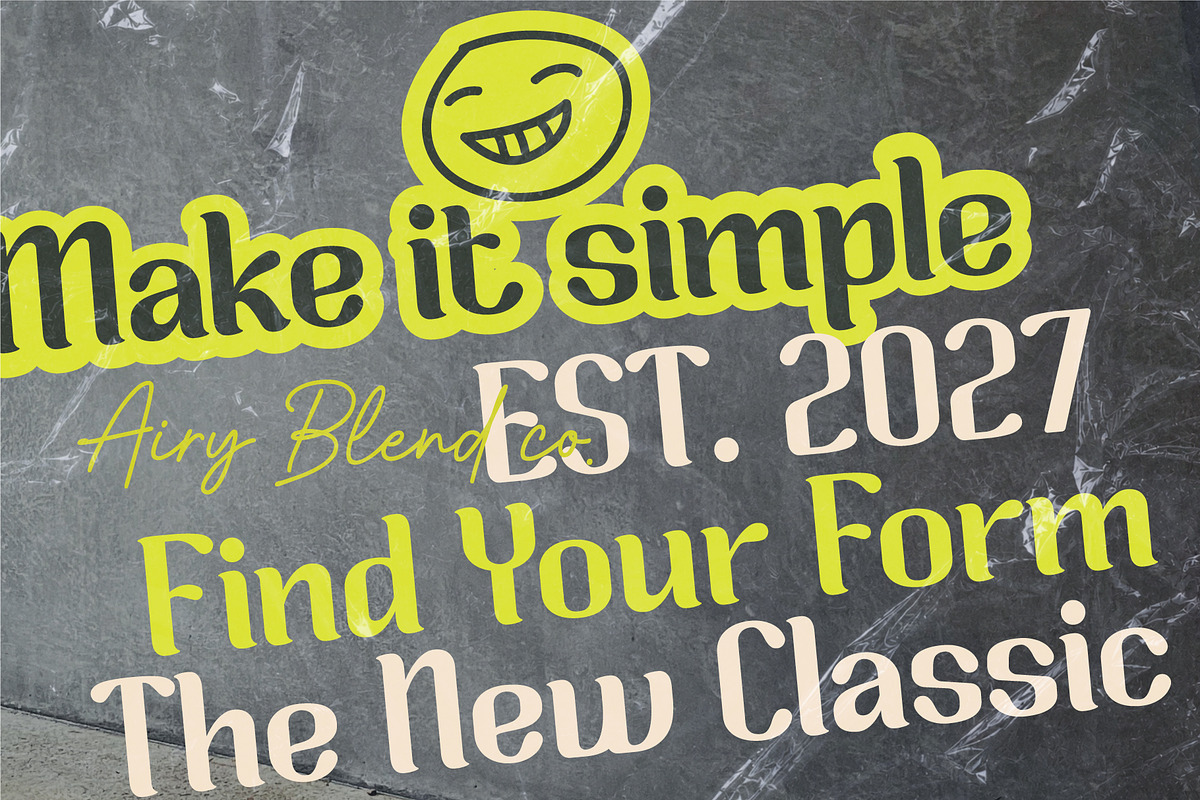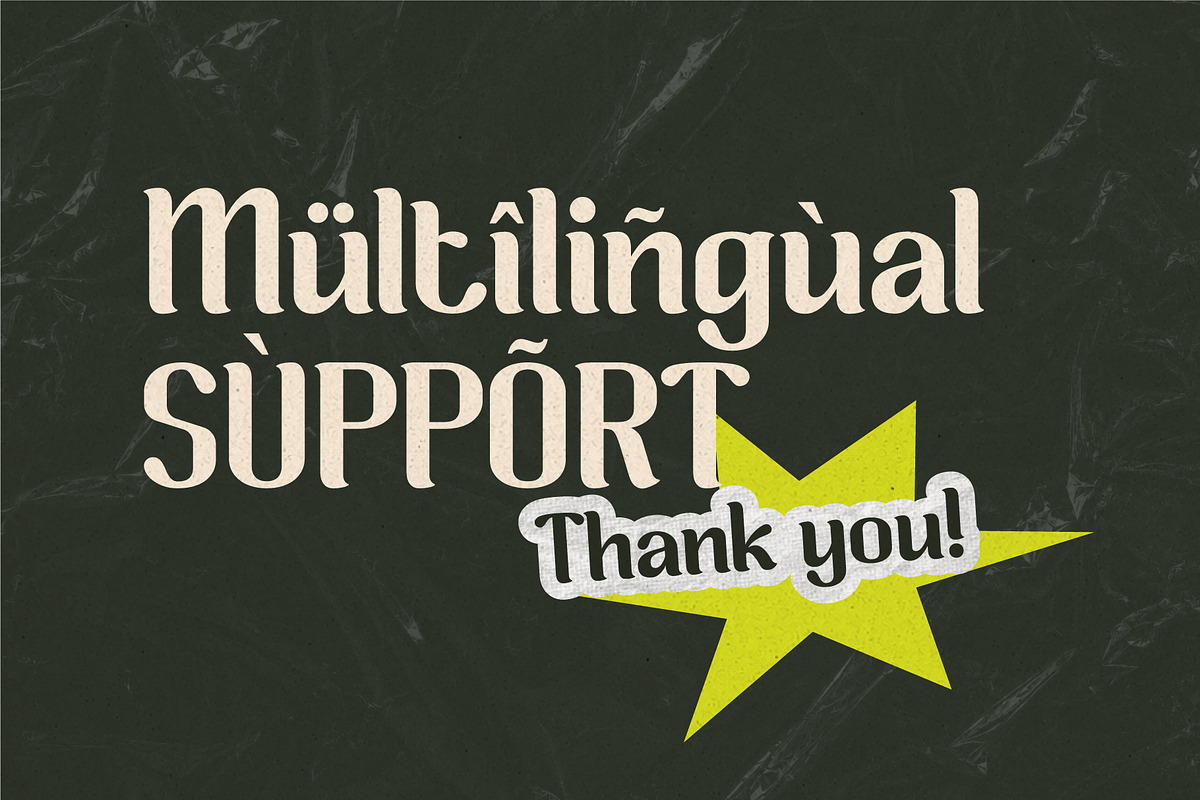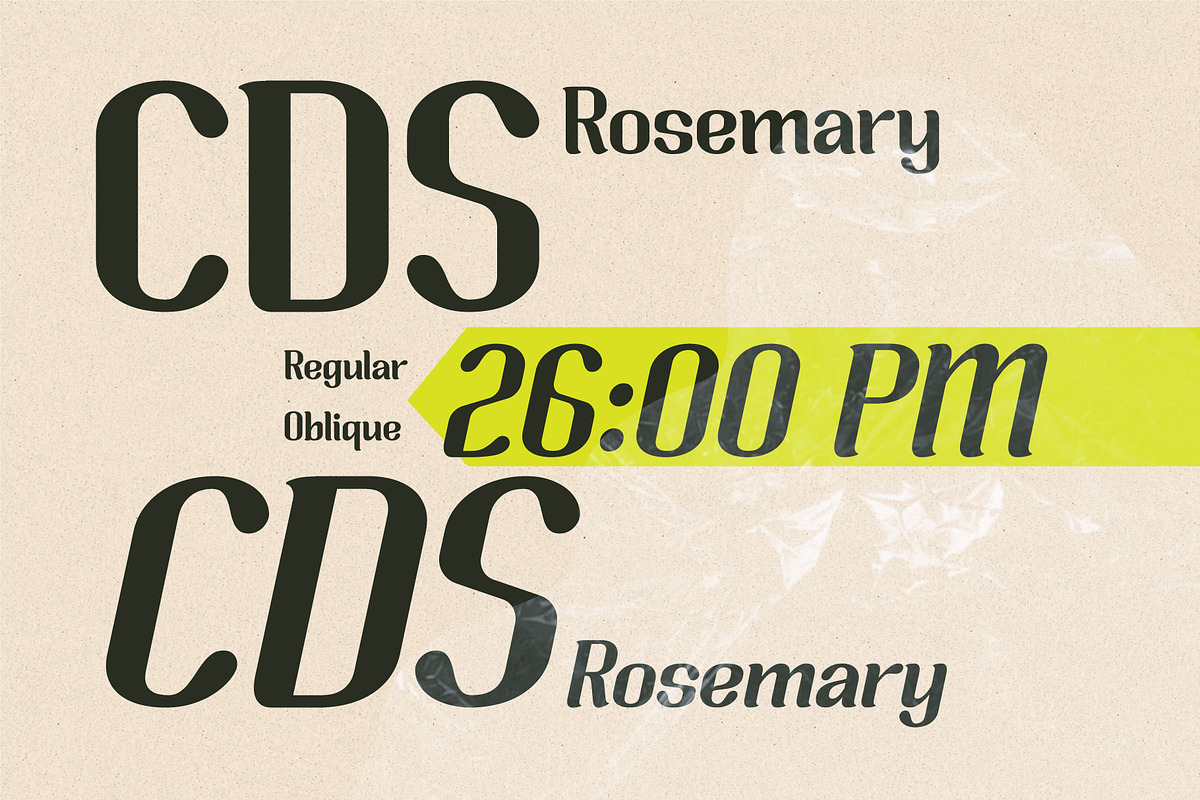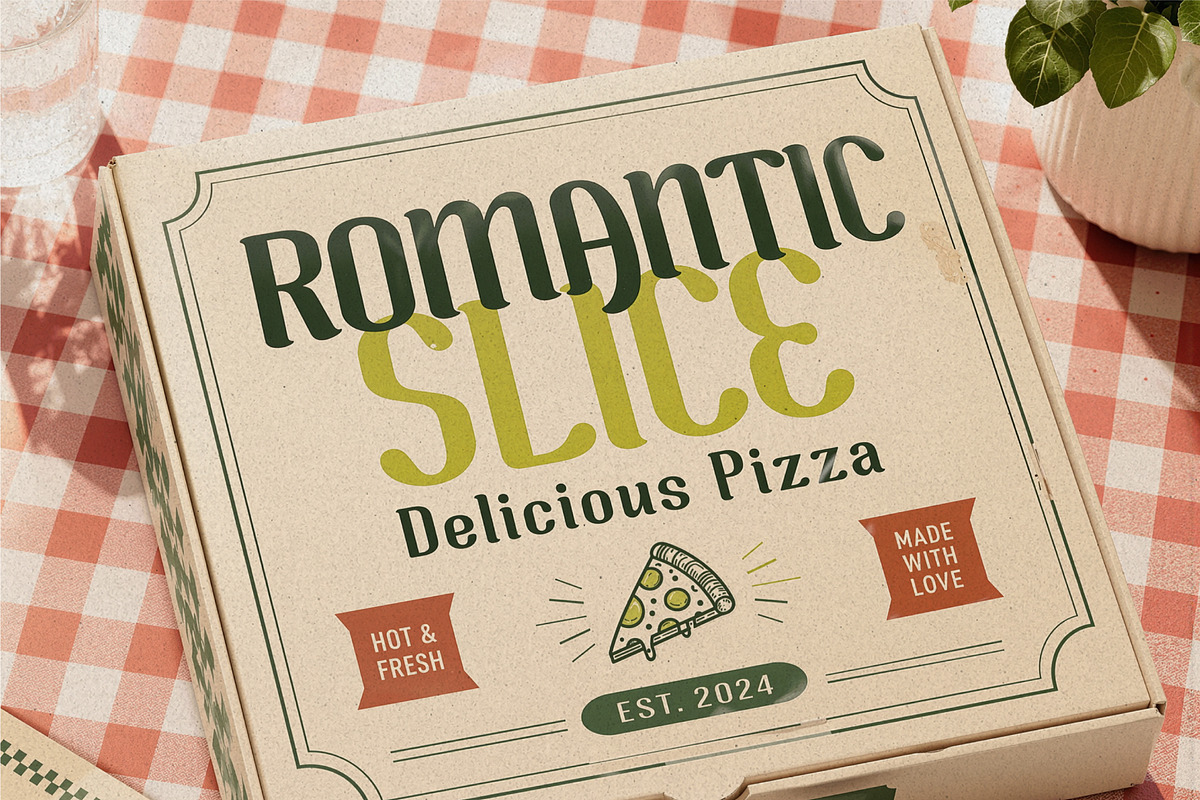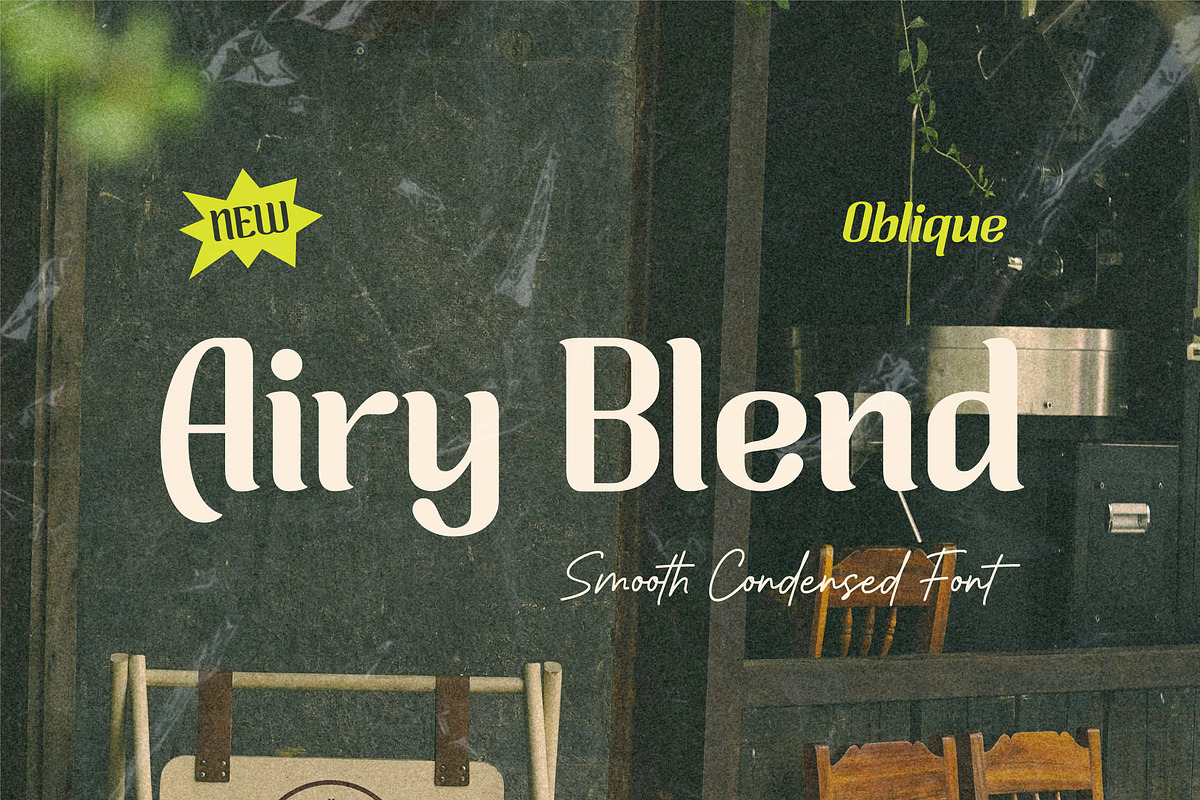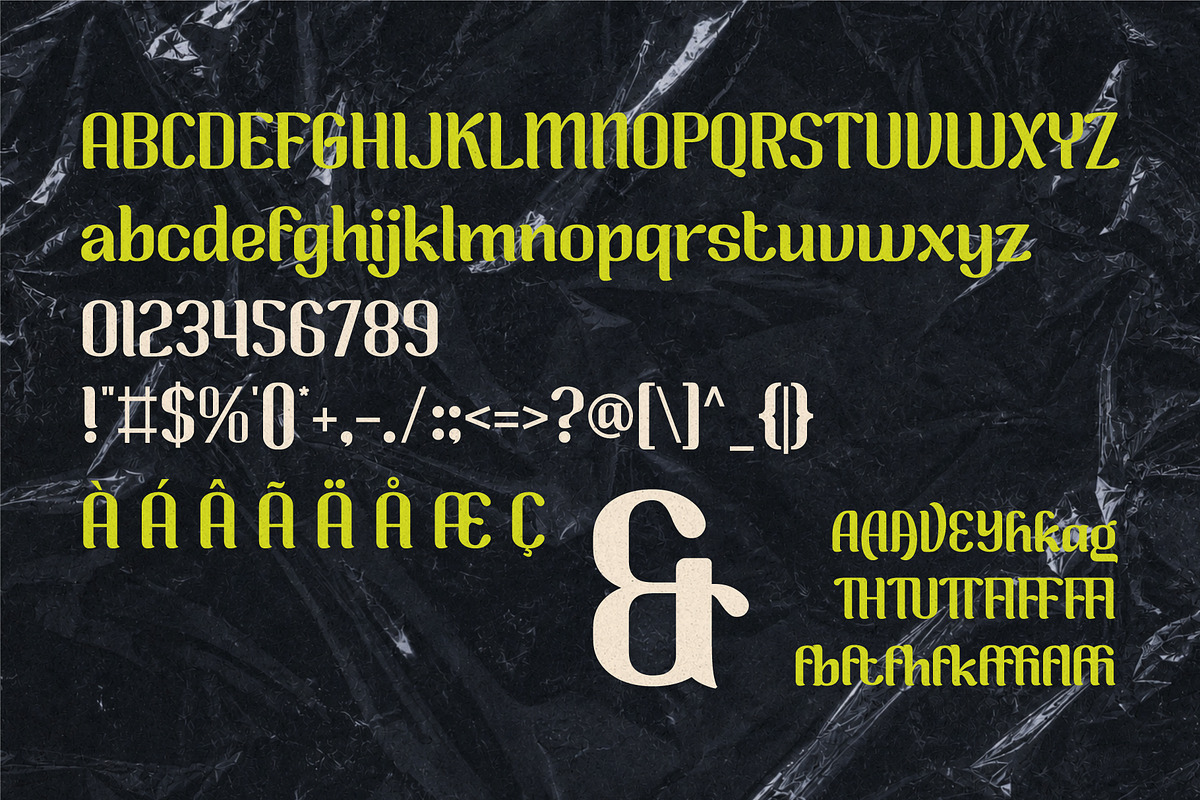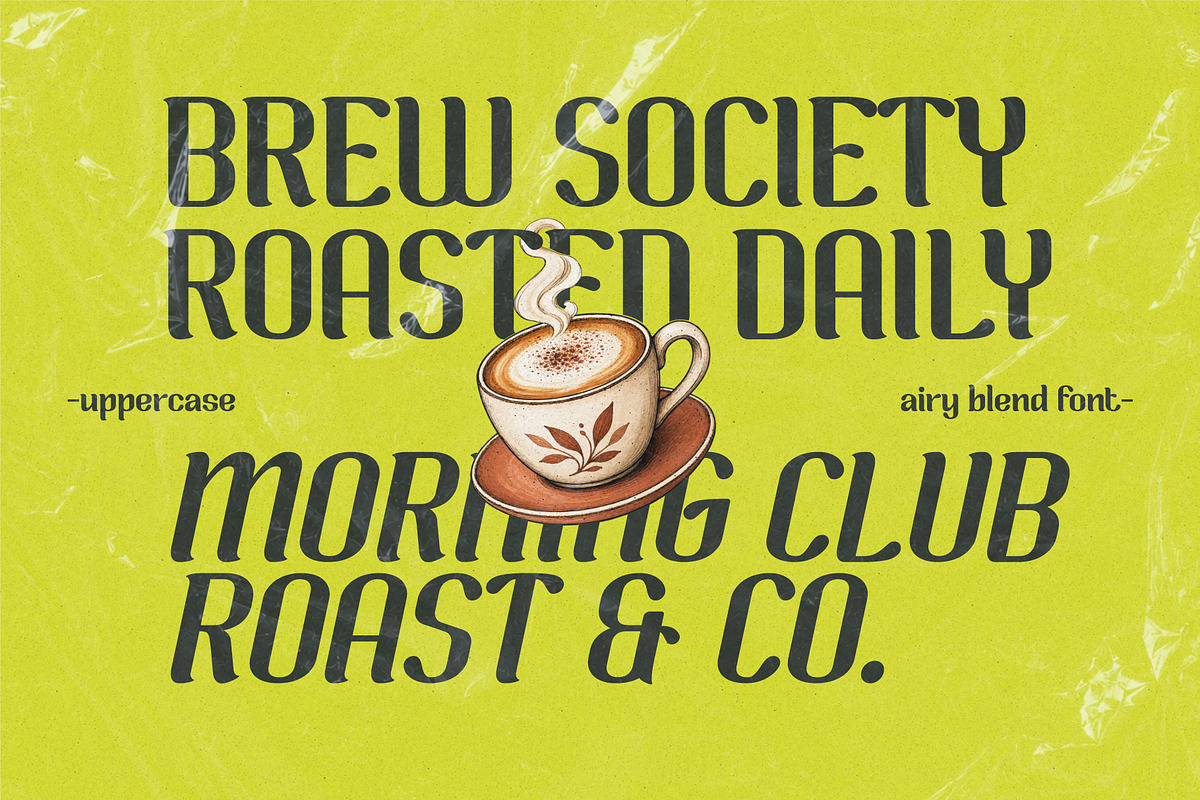
Airy Blend - Smooth Serif
Meet Airy Blend, a refined serif font with a soft, elegant personality and a beautifully smooth feel, inspired by contemporary editorial typography, modern fashion branding, romantic aesthetics and timeless serif design.
With its graceful curves, delicate serifs and balanced proportions, Airy Blend brings a sophisticated yet approachable character to your typography. Its airy appearance creates a sense of elegance and effortless style, making it easy to pair with both minimal and expressive layouts.
Airy Blend is perfect for projects that need a polished, feminine and contemporary touch - from logos, branding, fashion, beauty, packaging, invitations and stationery to magazines, social media graphics, posters and editorial designs.
Elegant, airy and effortlessly refined, Airy Blend adds a smooth modern sophistication to every creative project.